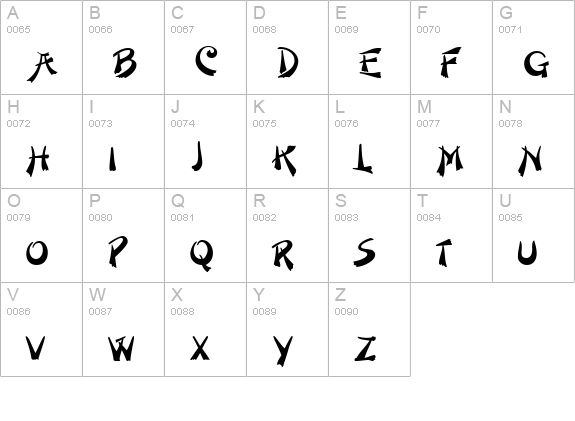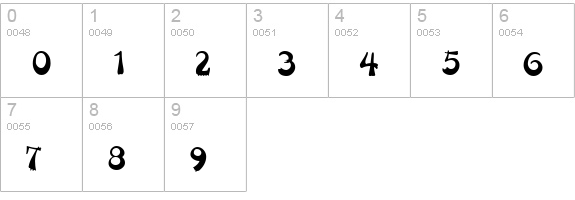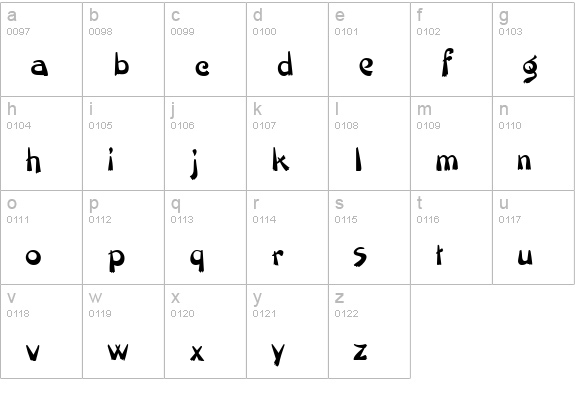
Painter Regular is the standard, neutral variant in the Painter typeface family \xE2\x80\x94 well suited to general body text, paragraphs, and standard typographic work.
Painter Regular is a wonderful font that brings a touch of artistic flair to any design project. With its elegant and flowing brush strokes, this font captures the essence of hand-painted artwork. The letters have a distinct texture and authenticity, making them appear as if they were meticulously crafted by a skilled painter. This font is perfect for adding a creative and unique touch to various design projects, such as logos, posters, invitations, and more. Whether you're creating a stunning visual display or simply adding a bit of artistic charm to your personal projects, Painter Regular is sure to impress. What makes this font even more appealing is that it is completely free to download at FontsMarket.com. Yes, you read that right - you can enjoy the beauty and versatility of Painter Regular without having to spend a dime. FontsMarket.com offers a wide range of high-quality fonts, and Painter Regular is just one of the many gems you'll find on their website. So, if you're looking to add a touch of artistic elegance to your designs without breaking the bank, look no further than Painter Regular. Download it for free at FontsMarket.com and let your creativity flourish.